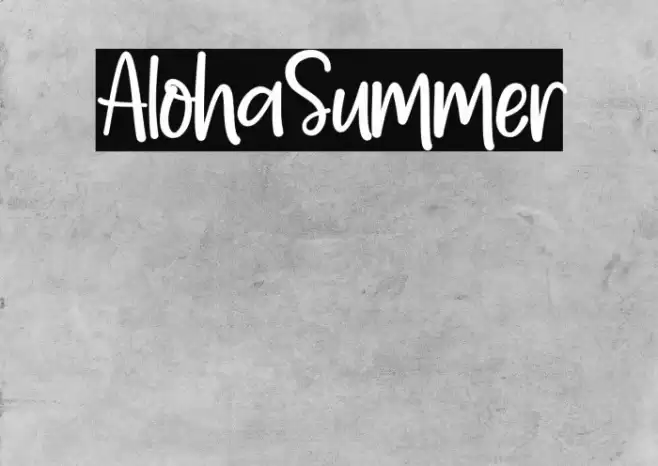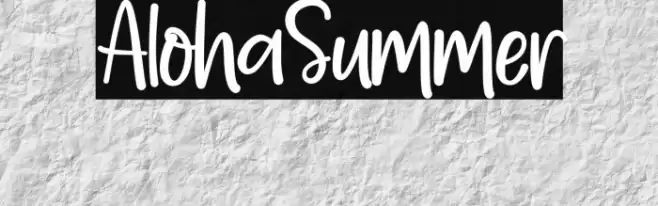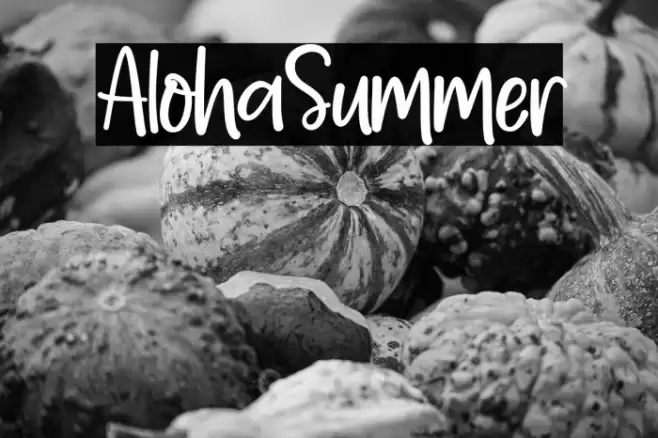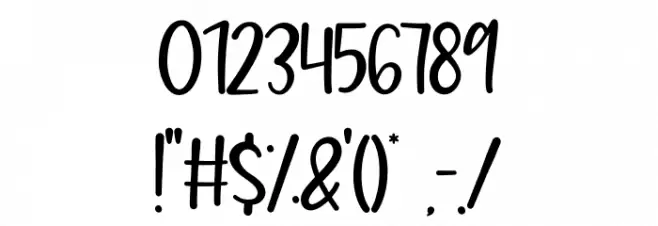
AlohaSummer Font
AlohaSummer Description
This playful and casual font exudes a handwritten charm with its smooth, flowing lines and slightly irregular character shapes. The letters are bold and rounded, giving a friendly and approachable feel. The uppercase letters maintain a consistent height, while the lowercase letters have a slight slant, adding to the informal style. The numbers are clear and easy to read, matching the overall aesthetic. Special characters are included, maintaining the same playful style, making this font versatile for various uses.
A playful, handwritten-style font with bold, rounded characters from Regular fonts.
- Proposed Projects: Ideal for greeting cards, invitations, playful branding, and social media graphics.
- Overall Style: Casual
- Use Case: Headlines, Logos, Invitations